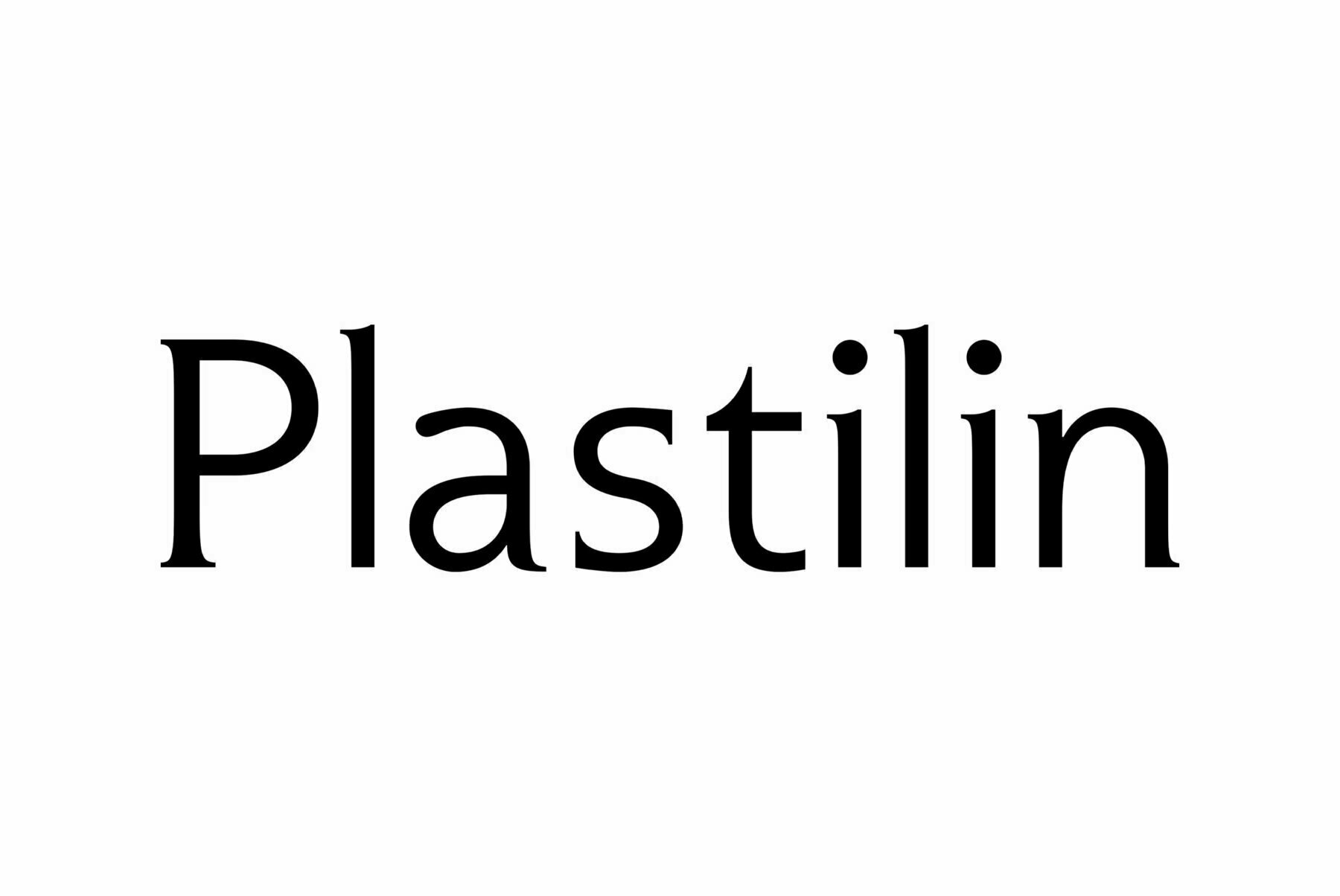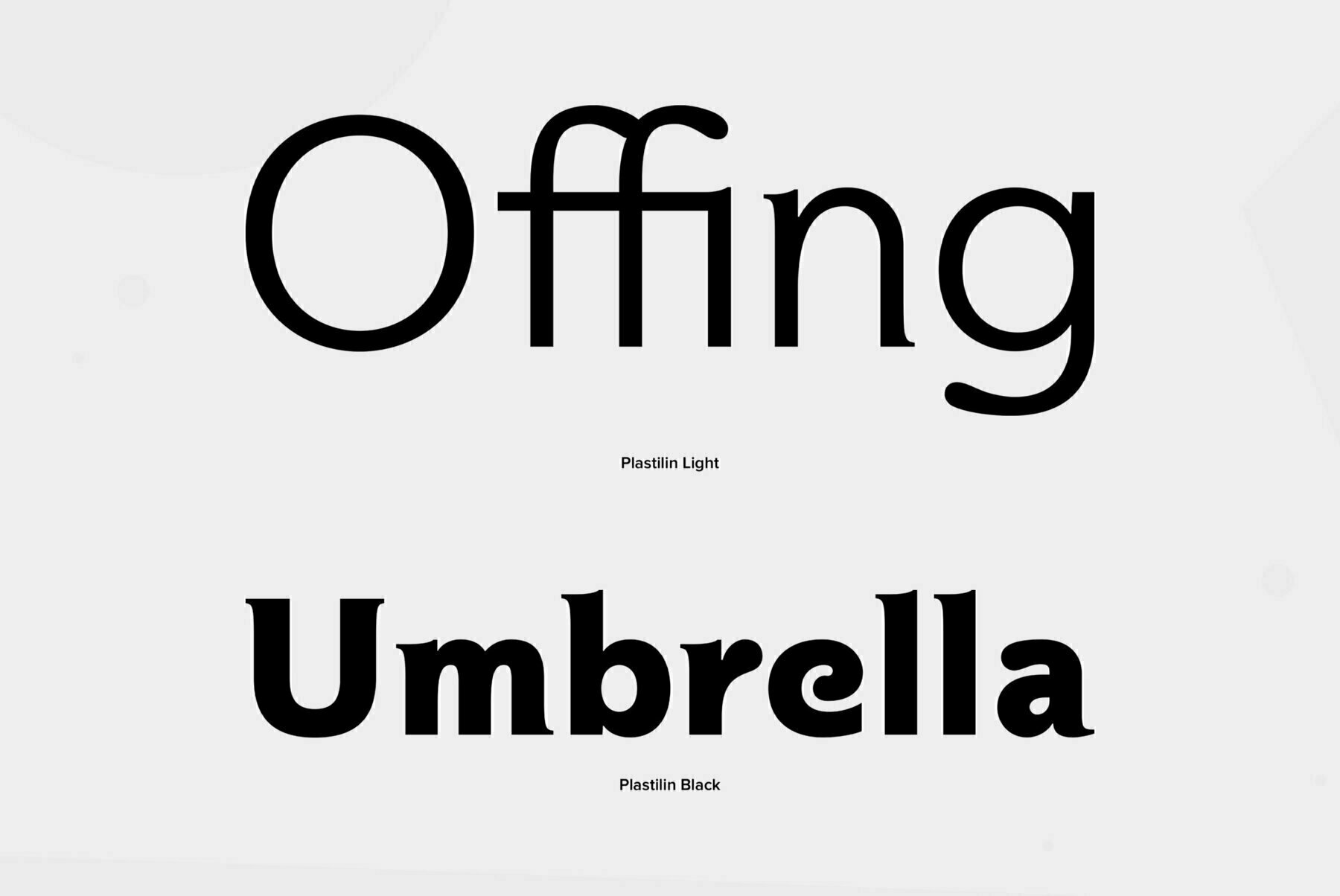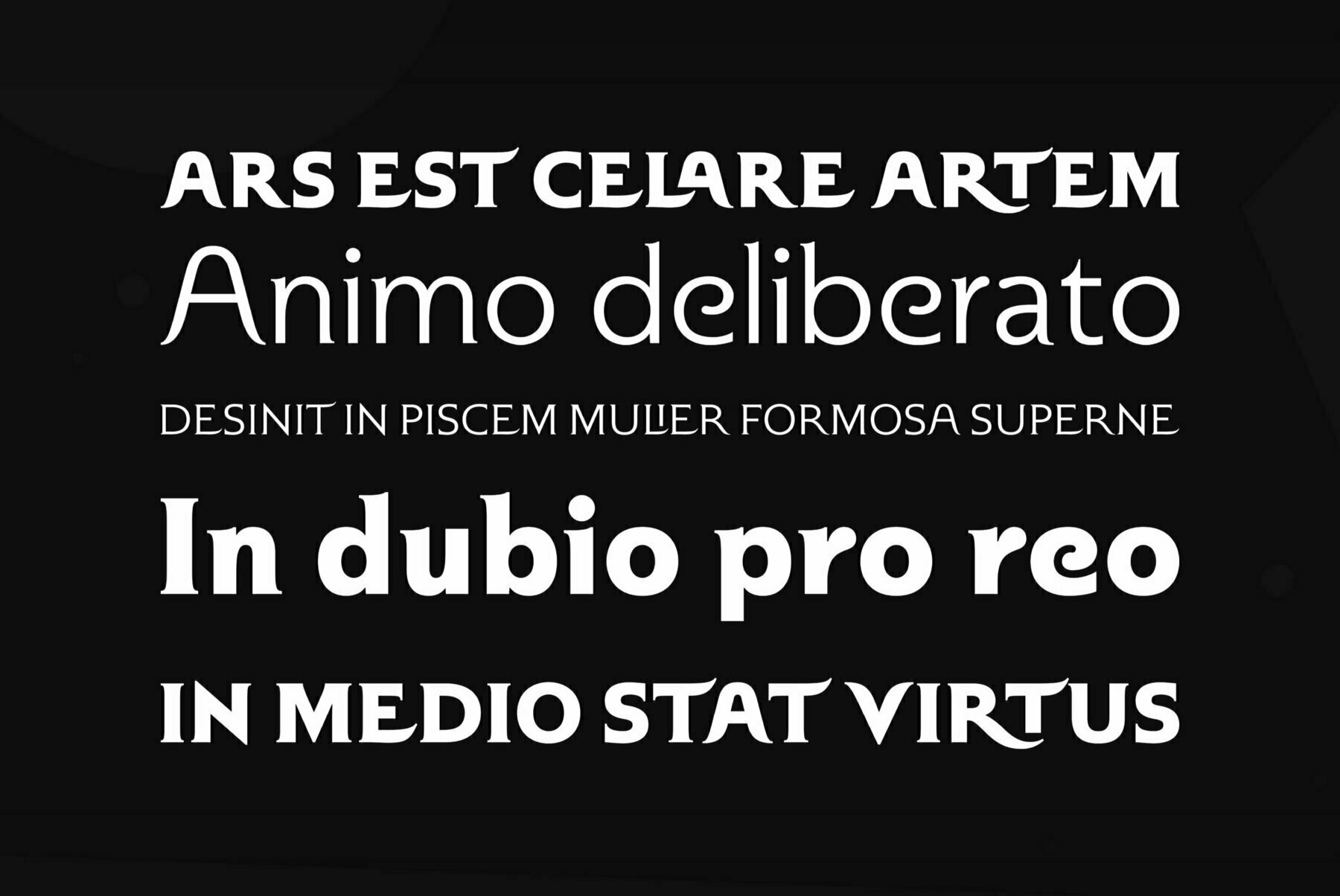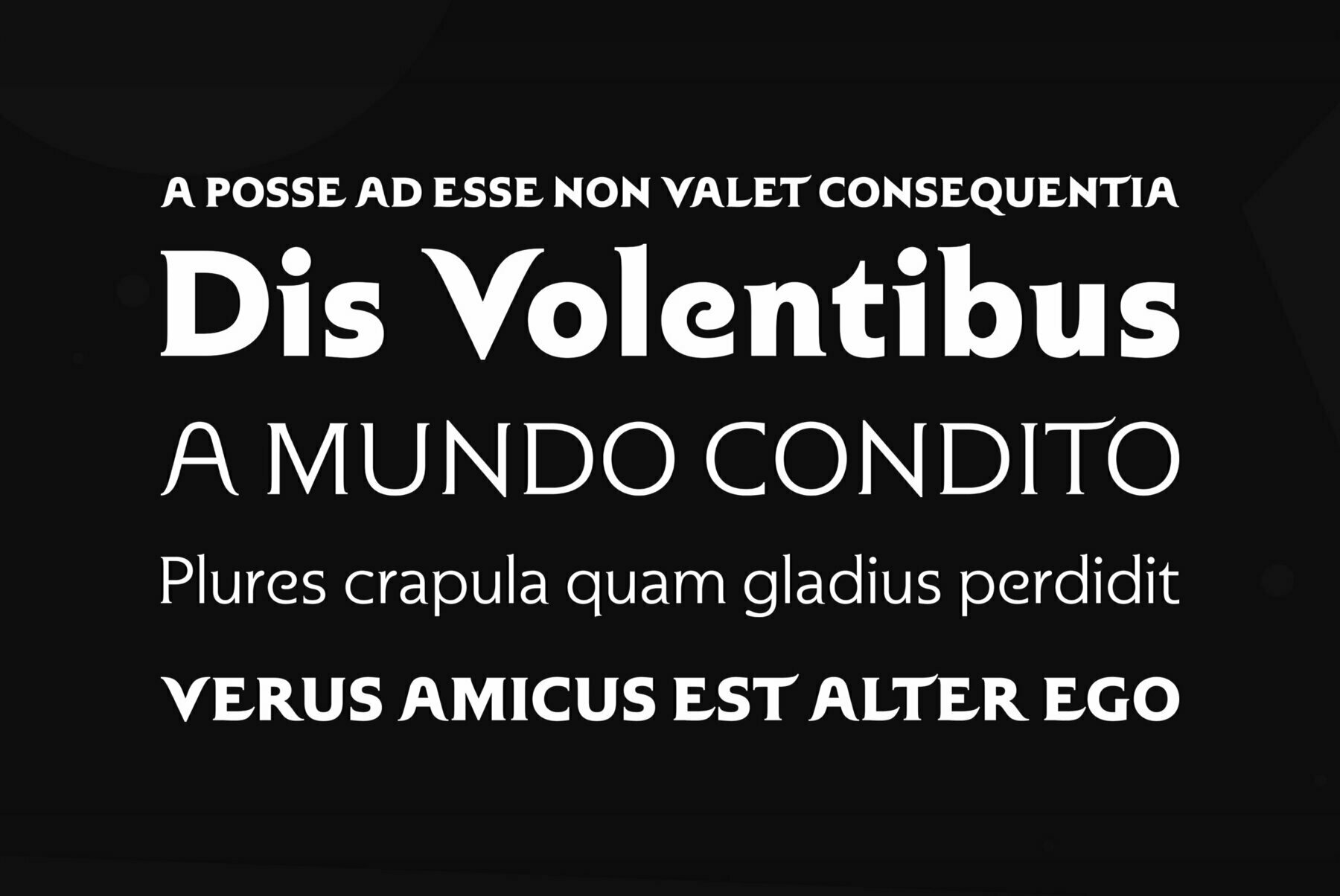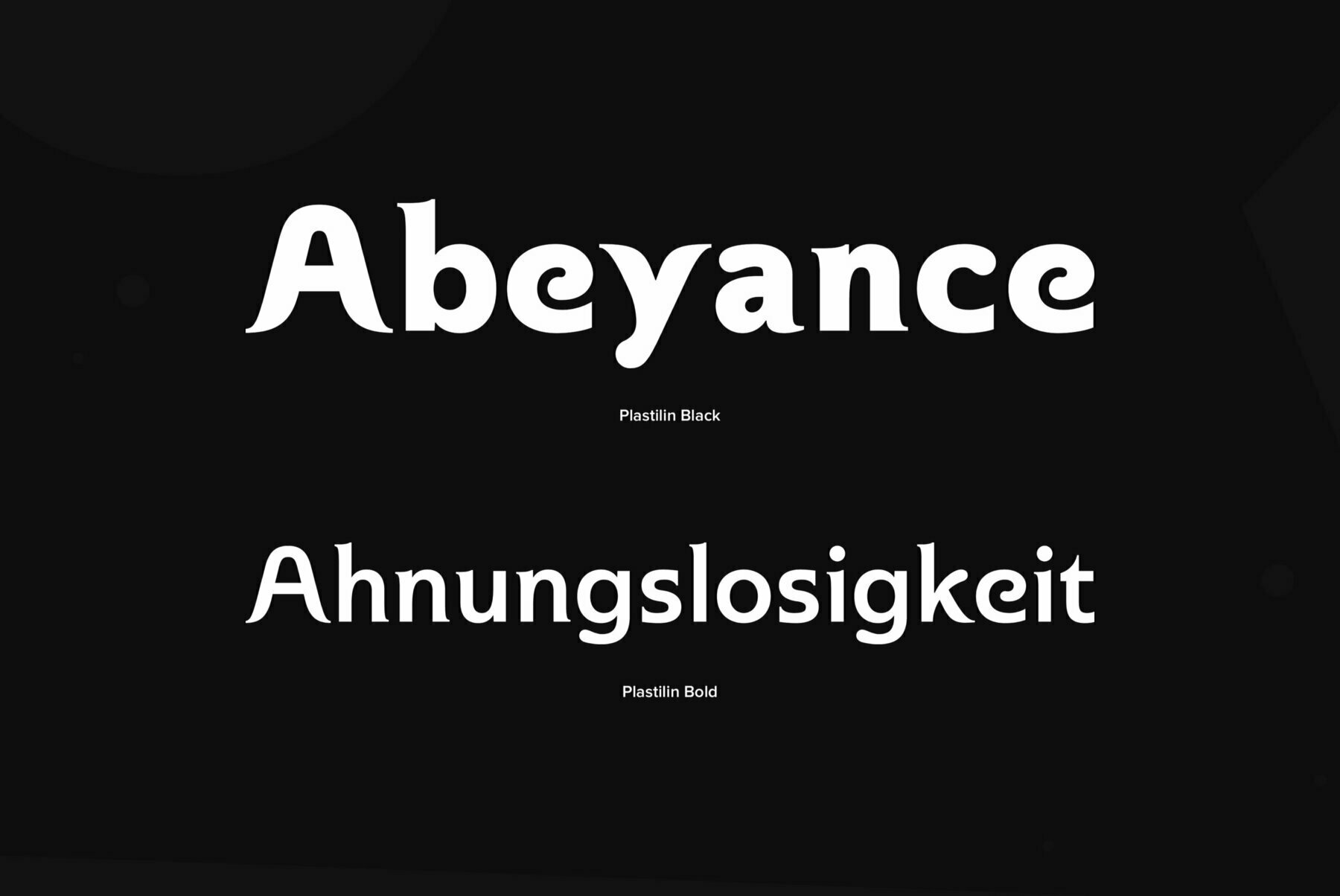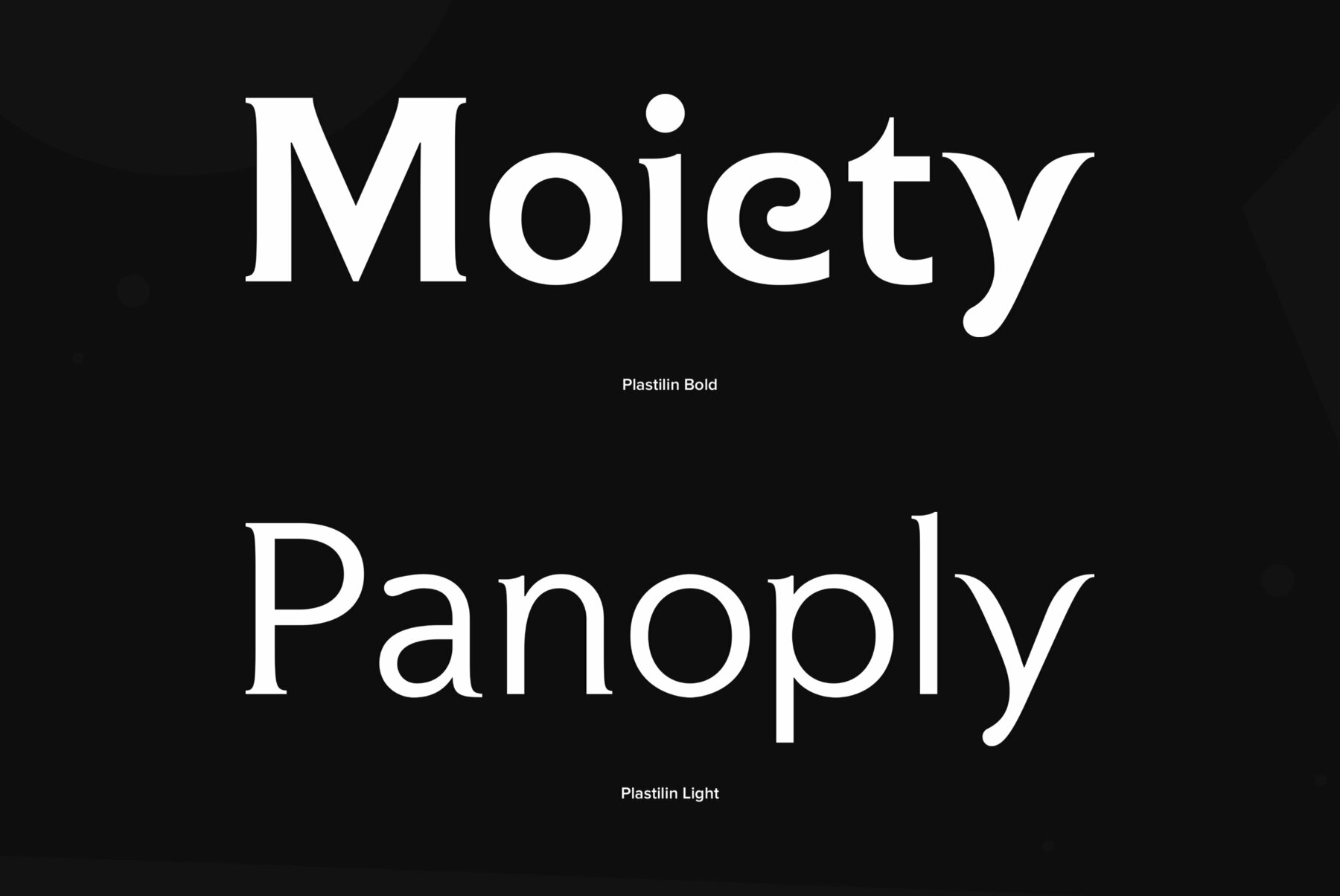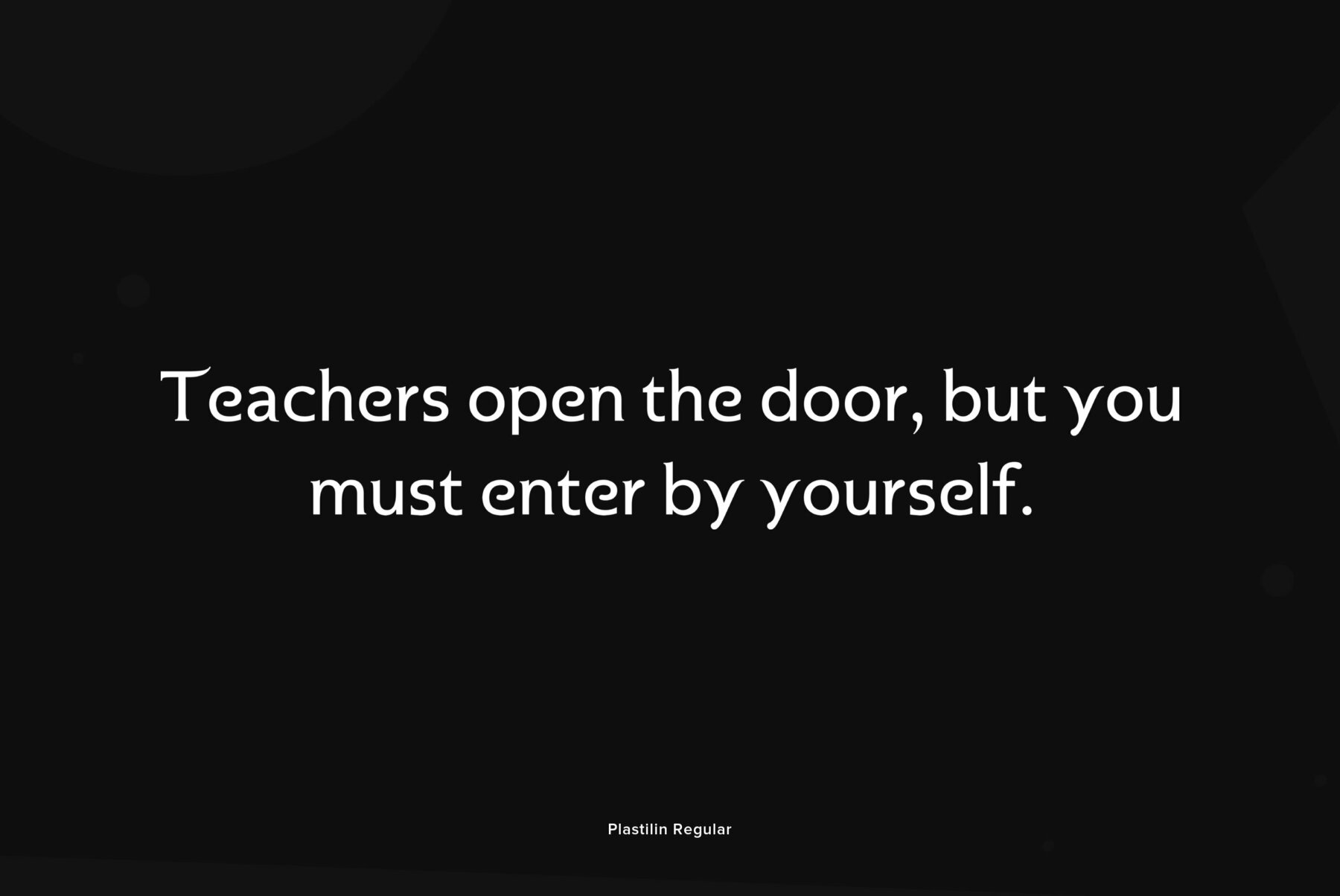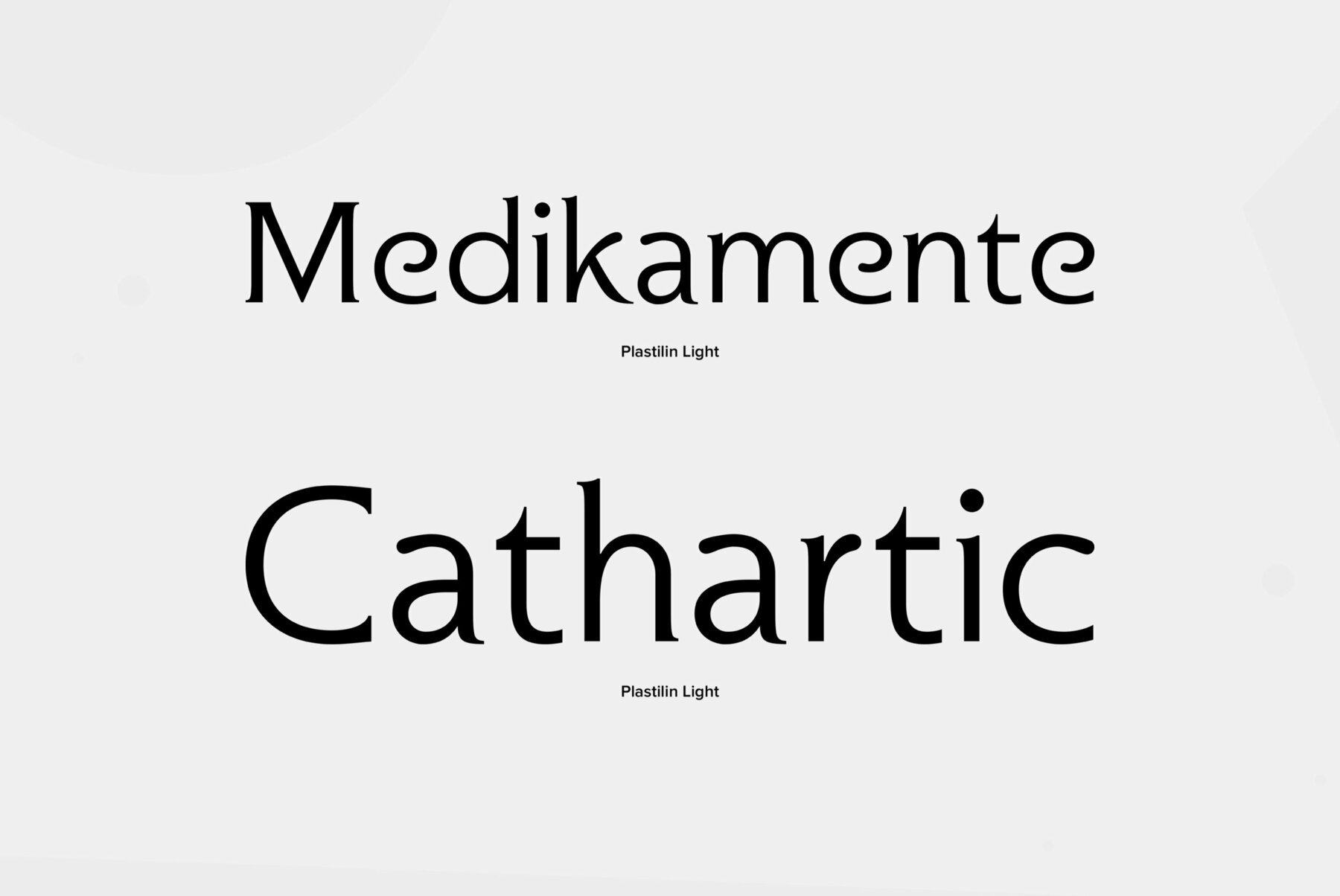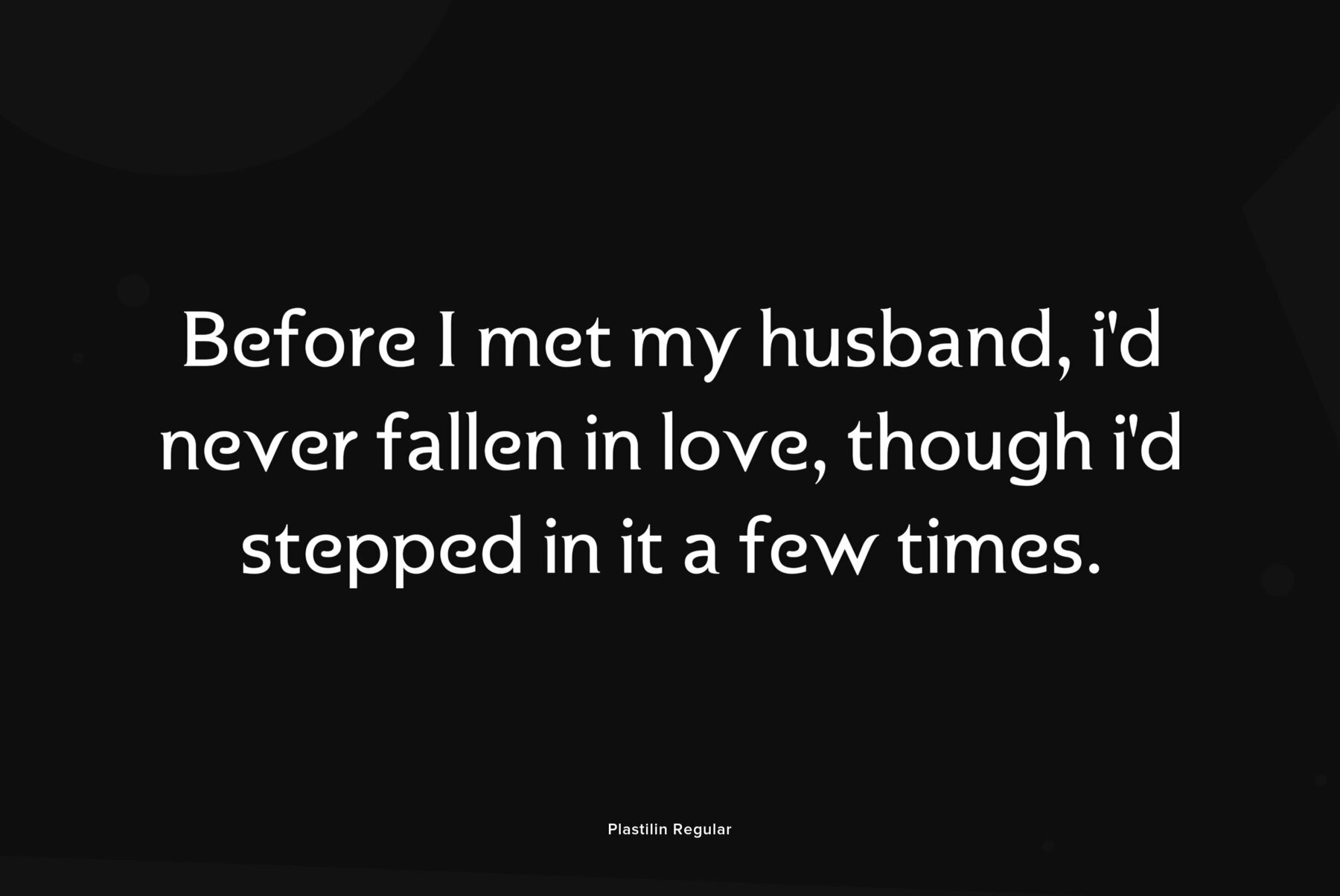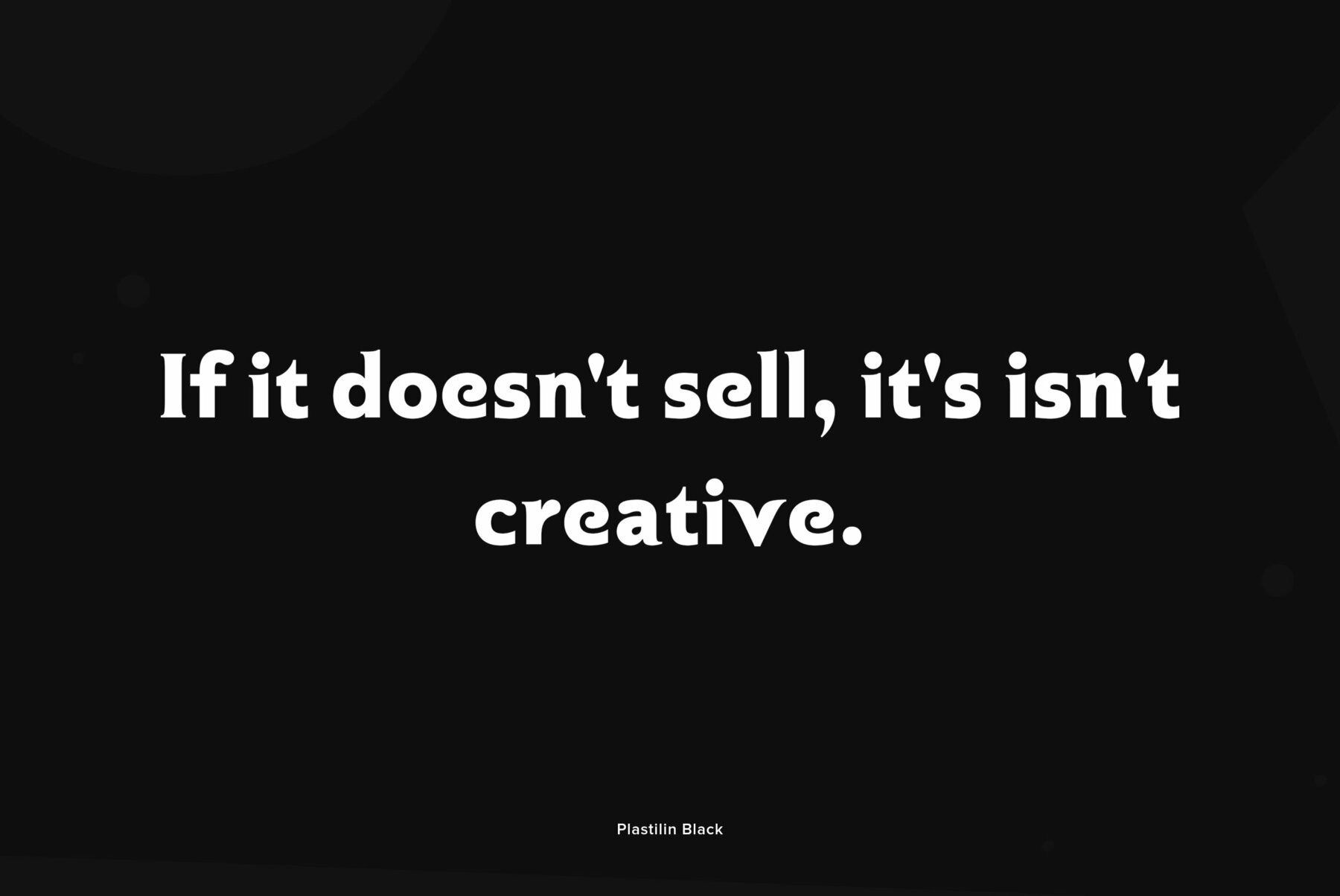
Plastilin
Plastilin type family of two weights obtained its name due to the soft, curved, stroke terminals of characters (J, K, L, R and others) and the little pointed serifs, as if extruded from stroke plastic mass. The character set has a lot of additional Latin and Cyrillic ligatures, as well as several alternate letter forms. Plastilin was designed for ParaType by Oleg Karpinsky in 2005. It is for use both in display setting and short text passages. In 2008 the author added two weights (Light and Black) and improved letterforms of some characters.